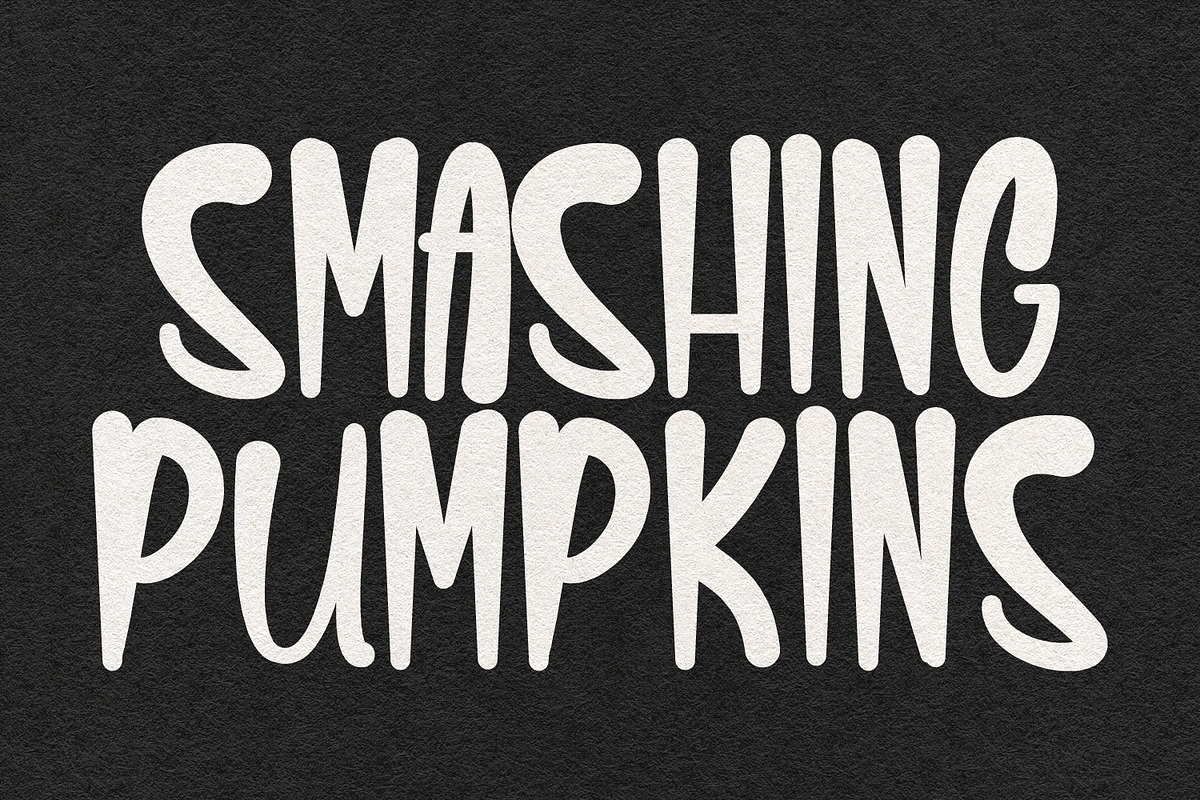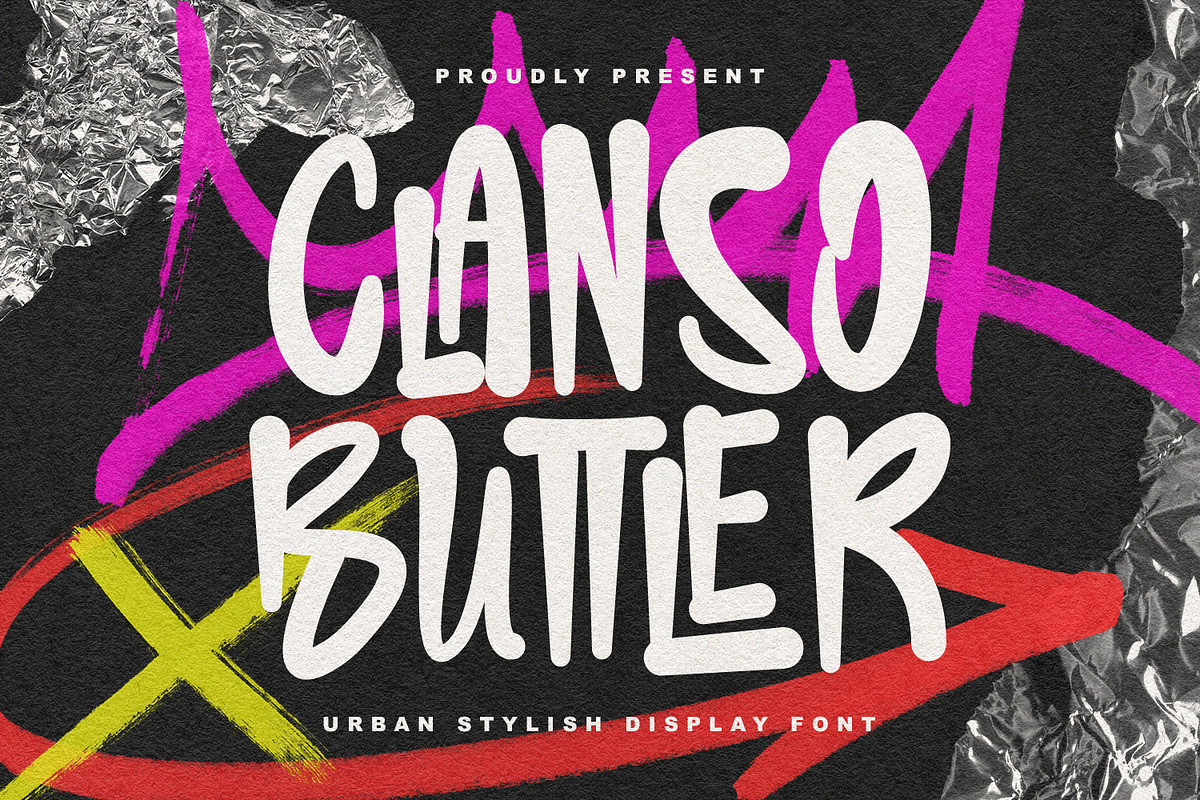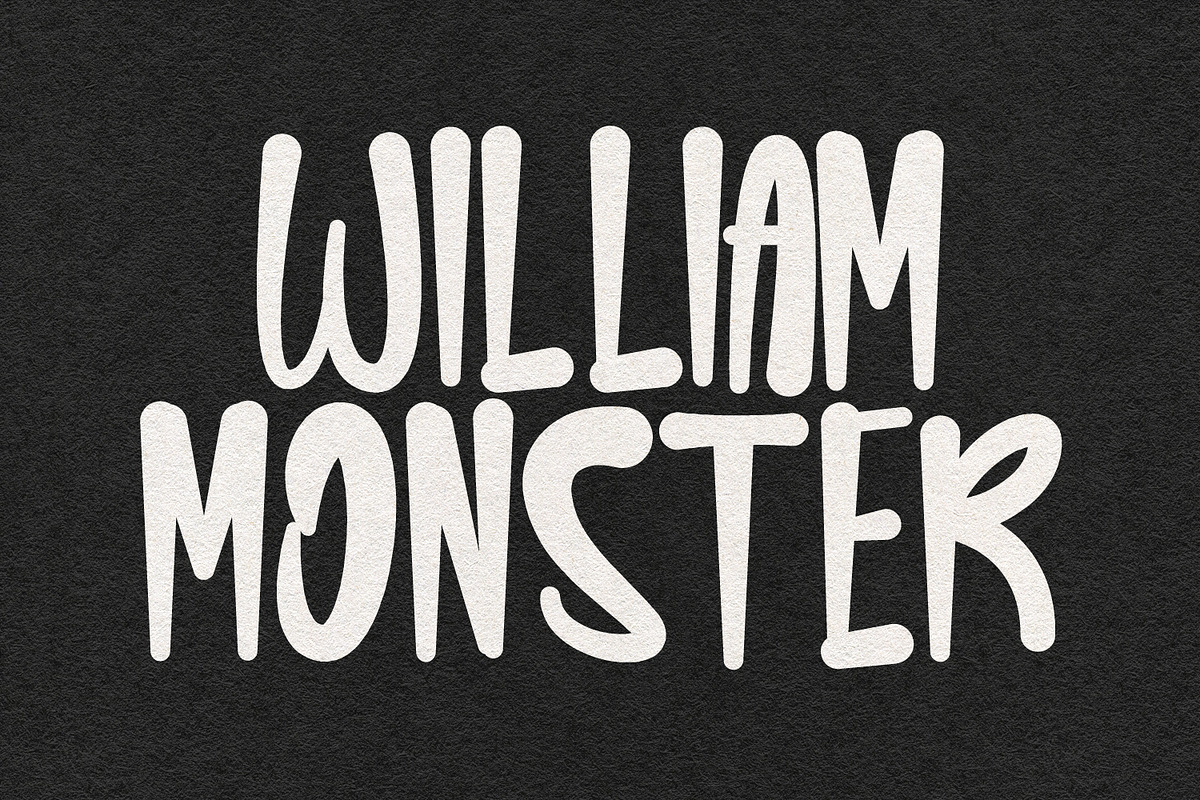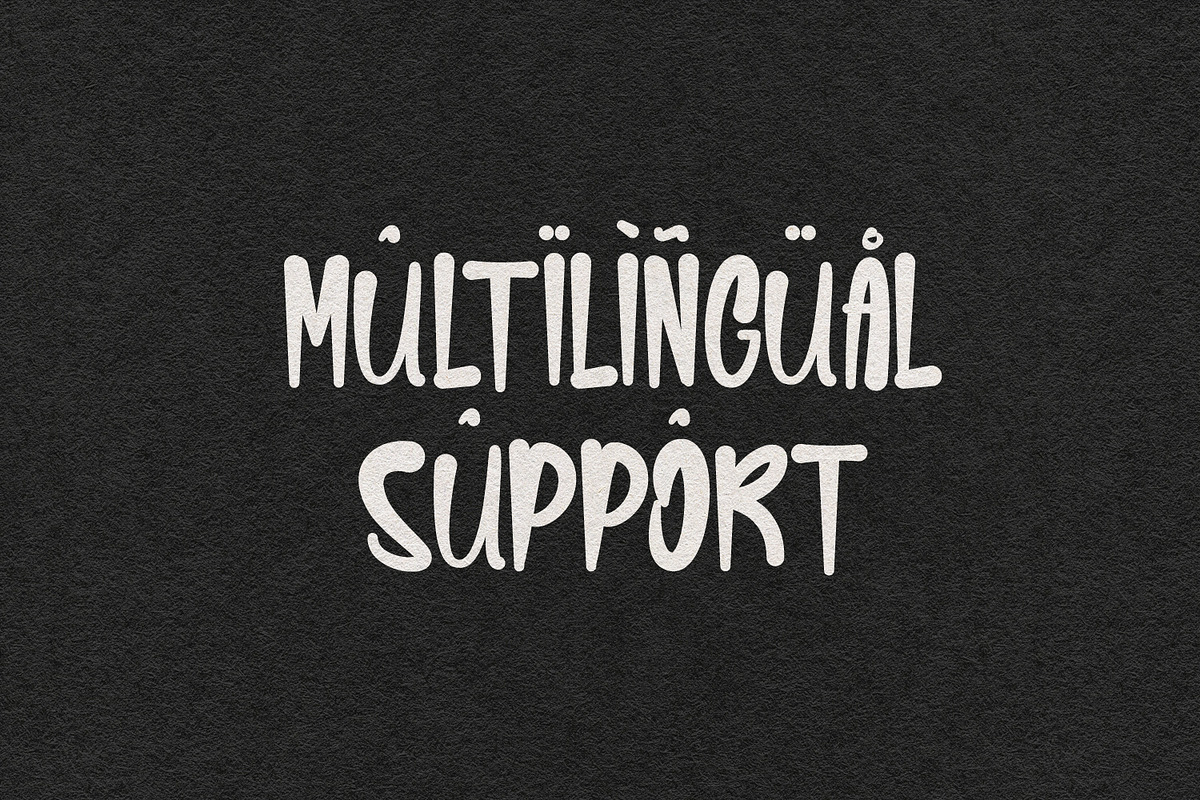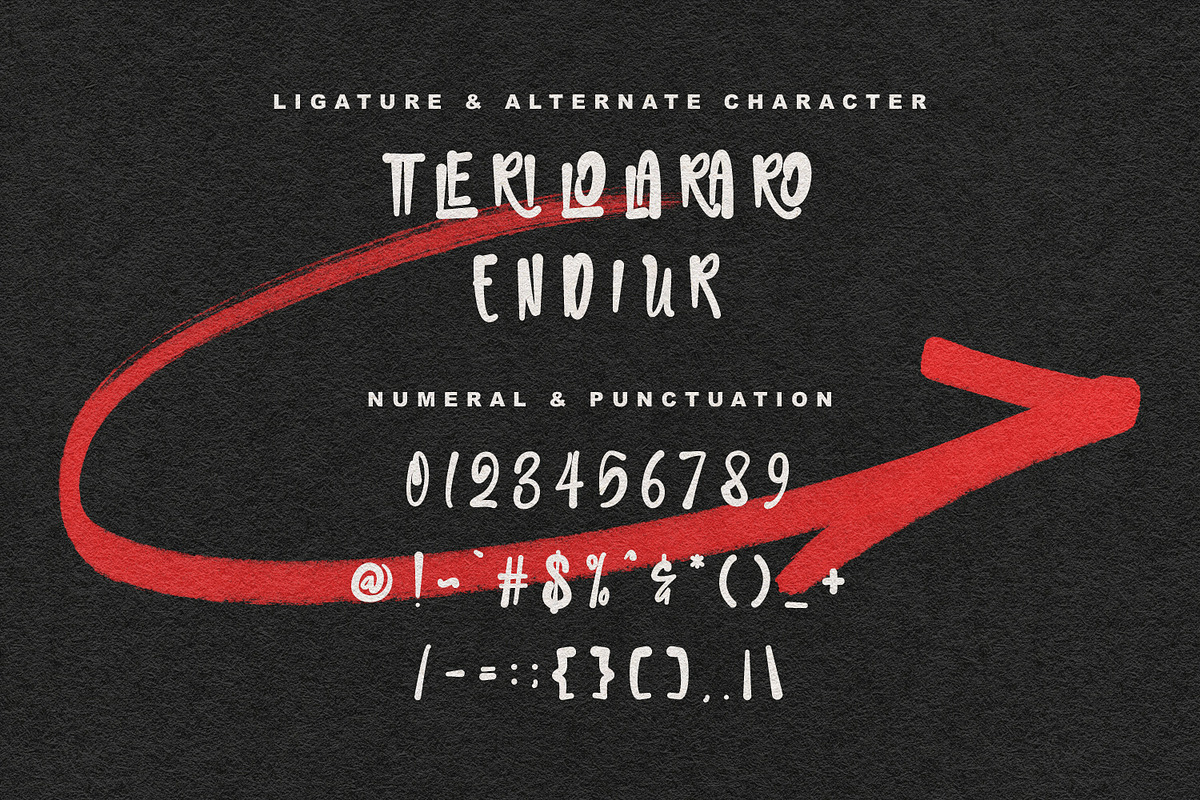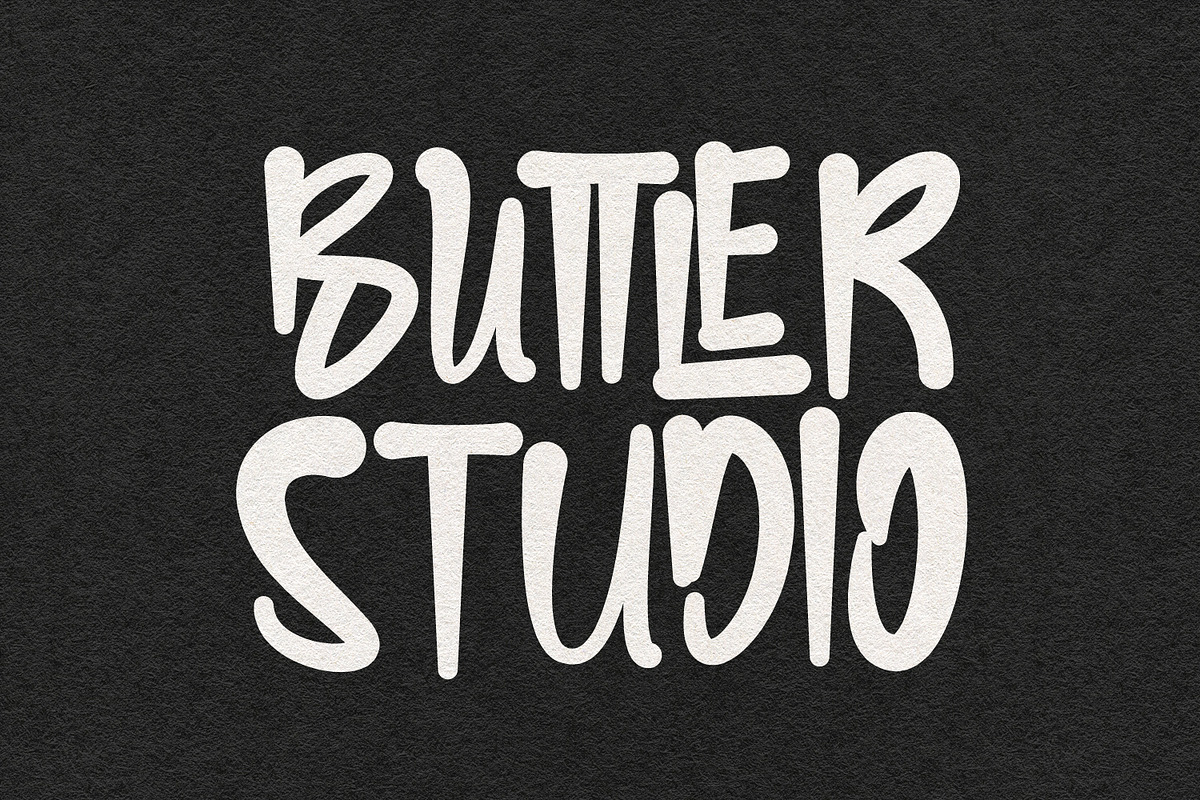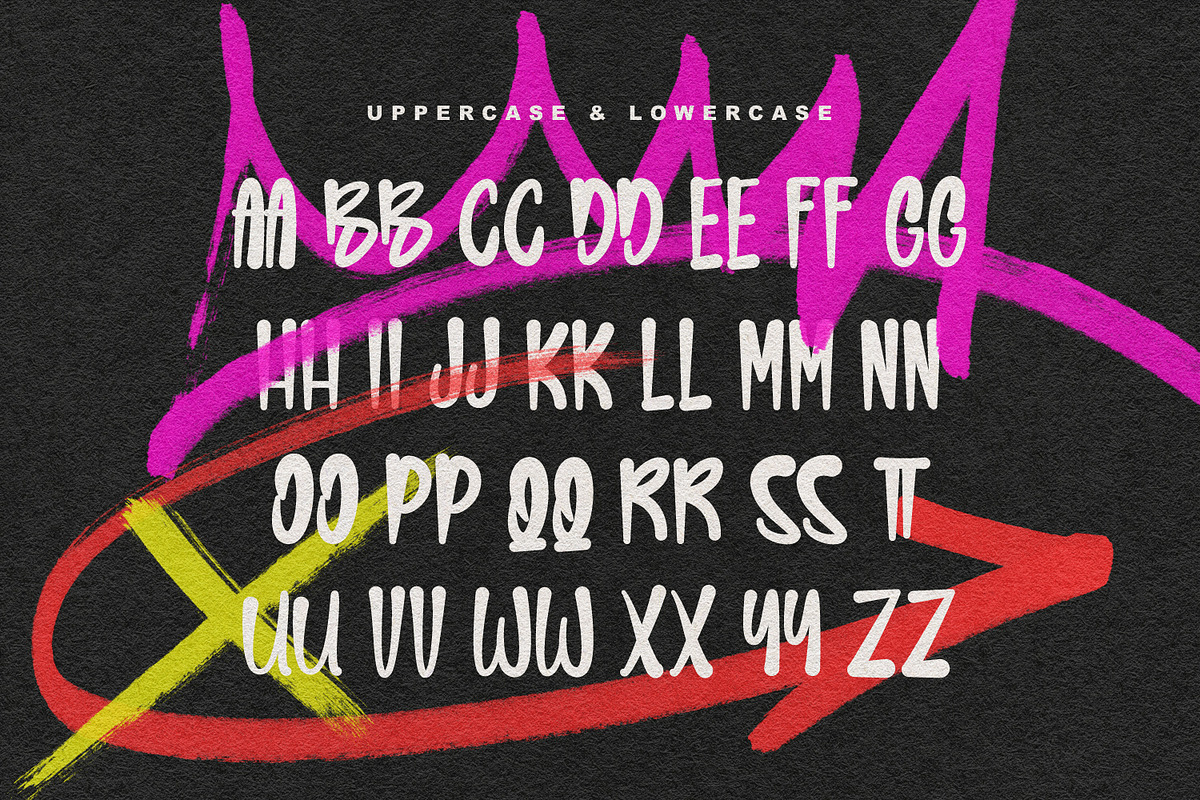
Clanso Buttler Urban Stylish Display
Clanso Buttler urban stylish display font, fun character with a bit of ligatures. To give you an extra creative work. Clanso Buttler urban stylish display font support multilingual more than 100+ language.